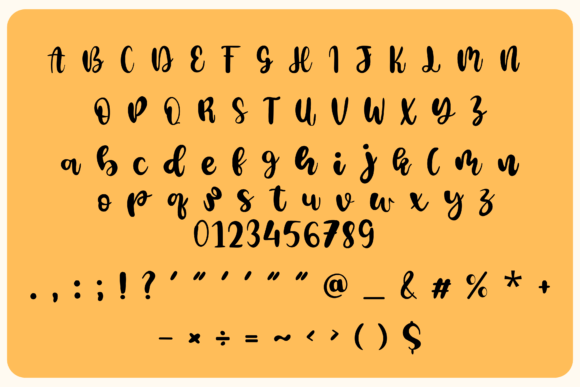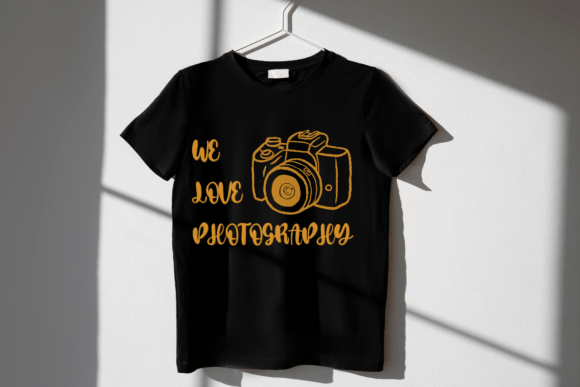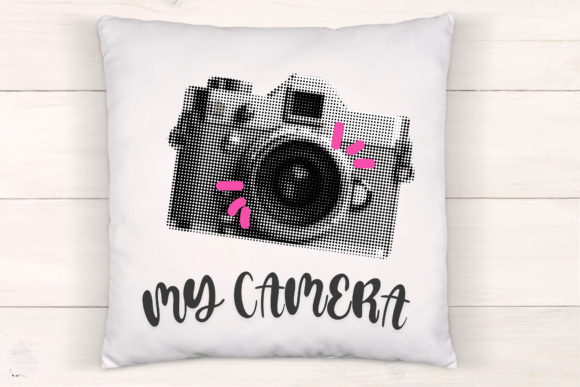
Introduction to Photography Font
You’ve finally found the perfect shot – the light, the composition, the subject, it all comes together in a beautiful moment. But have you ever thought about how you could elevate that moment even further? With the right design elements, you can transform your photography into a stunning work of art. That’s where the Photography Font comes in – a sweet and friendly handwritten font that’s perfect for adding a personal touch to your creative projects.
As a designer, you know how valuable a high-quality design resource can be. The Photography Font is a versatile and unique addition to any design arsenal, allowing you to experiment with different styles and ideas. Whether you’re working on a free download or a paid project, this font is sure to impress. With its natural and transparent background, it’s the perfect choice for designers looking to add a creative touch to their work.
Key Features of Photography Font
- High-quality design resource for creative projects: Photography Font is a premium font designed specifically for photographers and designers who need a unique and stylish font to enhance their work.
- Transparent background: The font comes with a transparent background, allowing for easy layering and composition in design projects.
- High-resolution design: The font is designed at 300 DPI, making it suitable for high-resolution printing and digital applications.
- Unique characteristics: Photography Font features a unique blend of modern and vintage elements, making it an excellent choice for designers and photographers looking to add a touch of elegance and sophistication to their work.
Honest Review: Photography Font
I recently stumbled upon the Photography Font and I’m excited to share my honest thoughts about it. As a designer, I’m always on the lookout for high-quality design resources to elevate my creative projects.
Here’s what works well: ✨ The font is super versatile and can be used for a wide range of photography-related projects, from captions to album titles. The transparent background makes it easy to customize and blend with different backgrounds. Plus, it’s a free download, which is a major plus!
- High-quality design with a professional look
However, I did notice a few limitations: ⚠️ The font is only available in a limited number of weights and styles, which might not be ideal for designers who like to experiment with different typography options. Additionally, the font doesn’t include any ligatures or swashes, which might be a drawback for some designers.
Overall, I’m impressed with the Photography Font and would definitely recommend it to fellow designers who are looking for a high-quality, easy-to-use font for their photography projects. With a little creativity, I’m sure you can make the most out of this fantastic design resource!
Tips for Getting the Most Out of Photography Font
Here are some tips to help you get the most out of Photography Font:
Use it for headings and titles to add a touch of elegance to your designs.
Experiment with different font sizes and styles to create visual interest.
Combine Photography Font with other design elements, such as images and graphics, to create a cohesive look.
Photography Font is ideal for:
Photography and art portfolios
Food and product photography
Travel and adventure photography
Alternatives to Photography Font
Great Vibes Font is a high-quality, elegant script font suitable for creative projects, especially those related to photography and design. It’s perfect for use on a transparent background to add a touch of sophistication. When to use: Magazine covers, wedding invitations, and other elegant designs. Compared to Photography Font, Great Vibes Font has a more refined and delicate look, making it ideal for formal events and high-end designs.